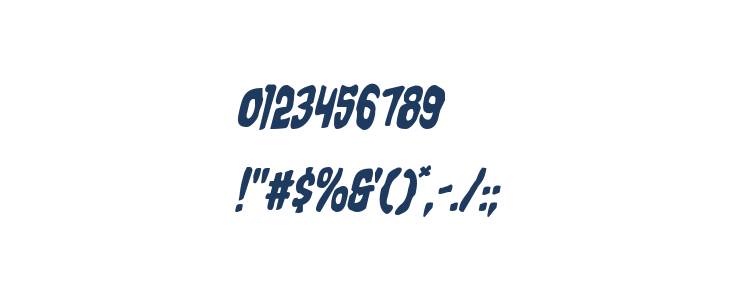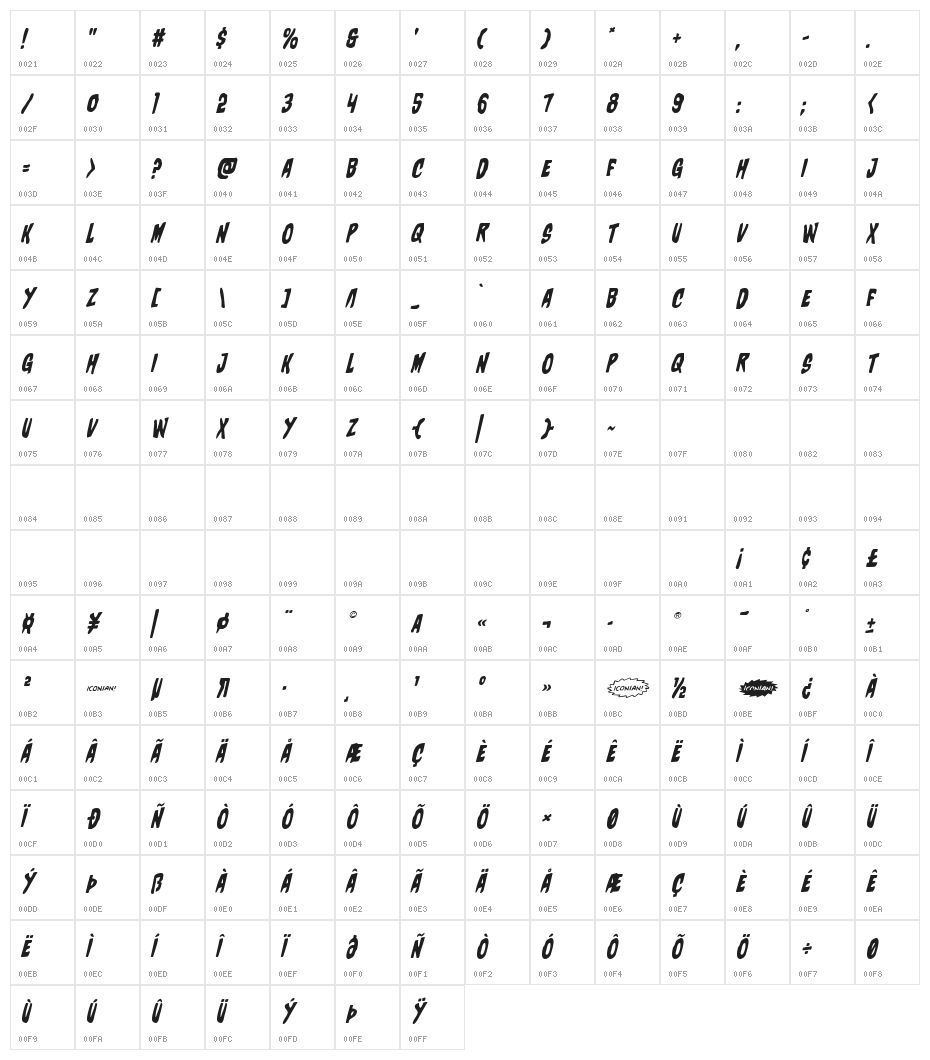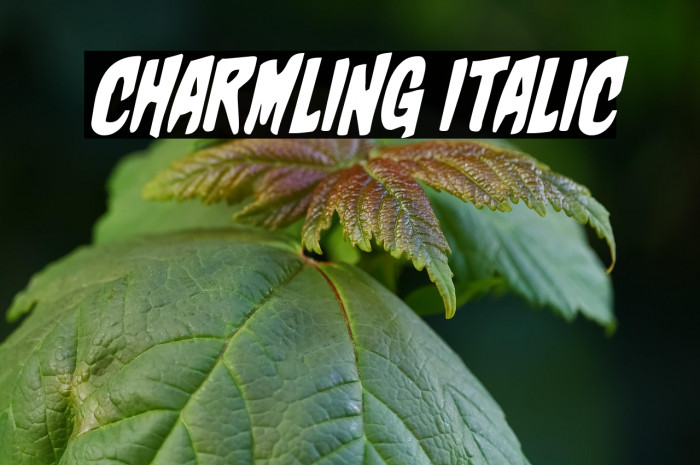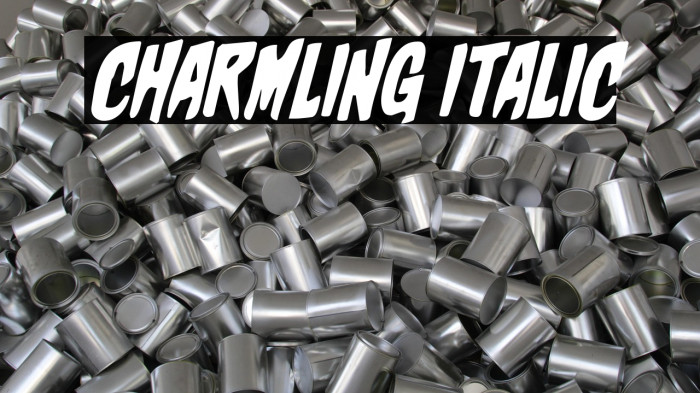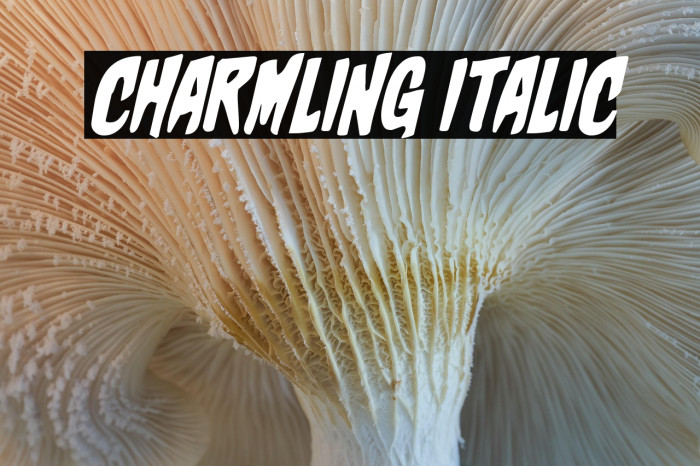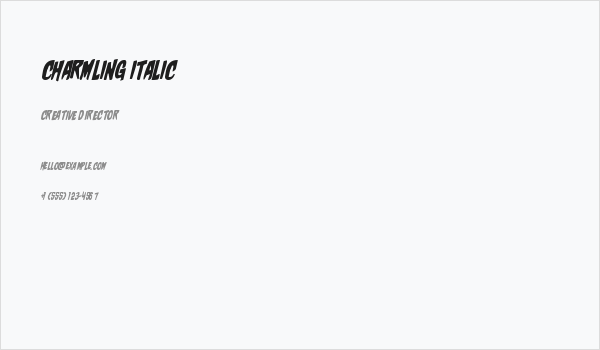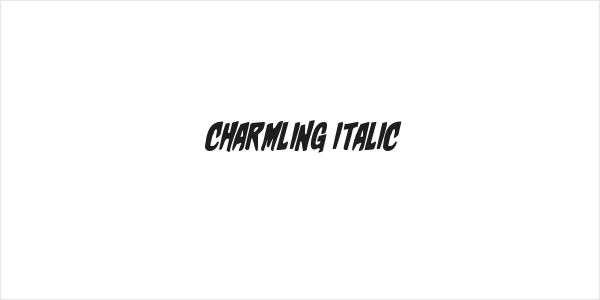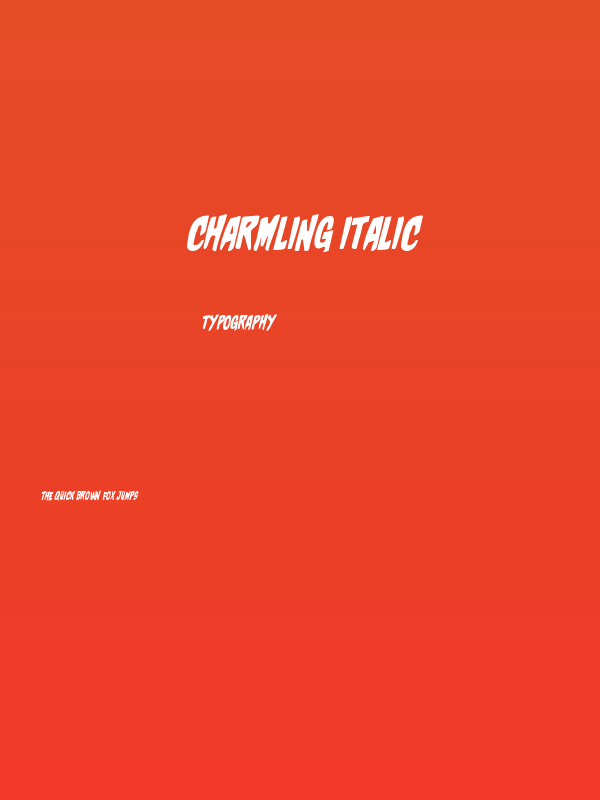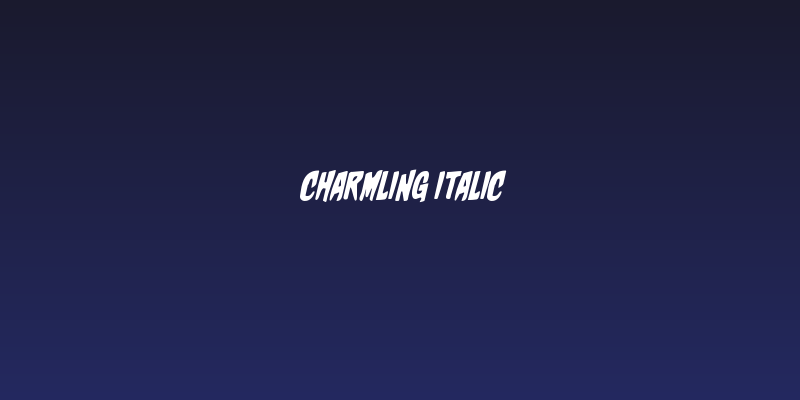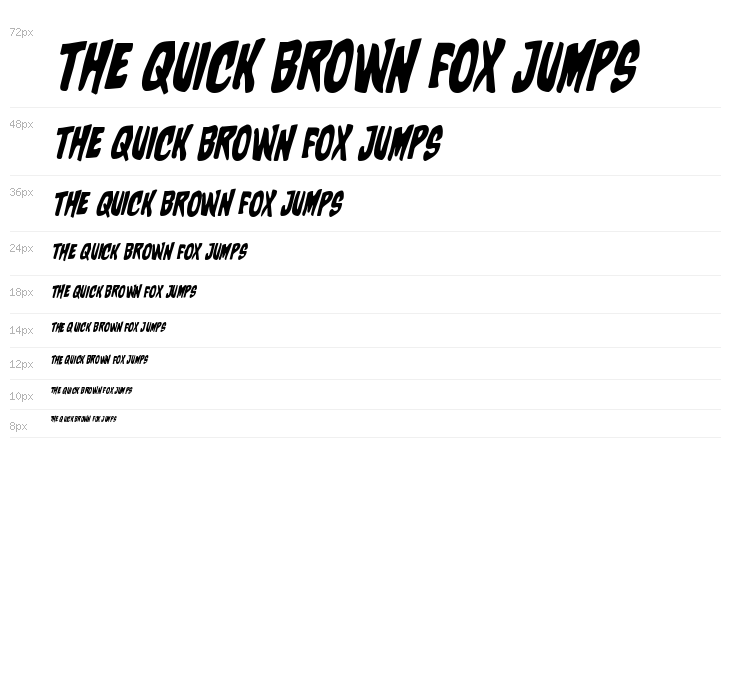
Charmling Italic Font
Charmling Italic Description
This font features a bold and dynamic style with a strong italic slant, giving it a sense of movement and energy. The characters are thick and robust, with a slightly condensed appearance that enhances their boldness. The strokes are consistent in weight, providing a uniform look across all characters. The uppercase and lowercase letters maintain a cohesive design, with the lowercase letters mirroring the boldness of the uppercase. The numbers and special characters are equally bold, ensuring they stand out in any design. This font's energetic style makes it ideal for projects that require a strong visual impact.